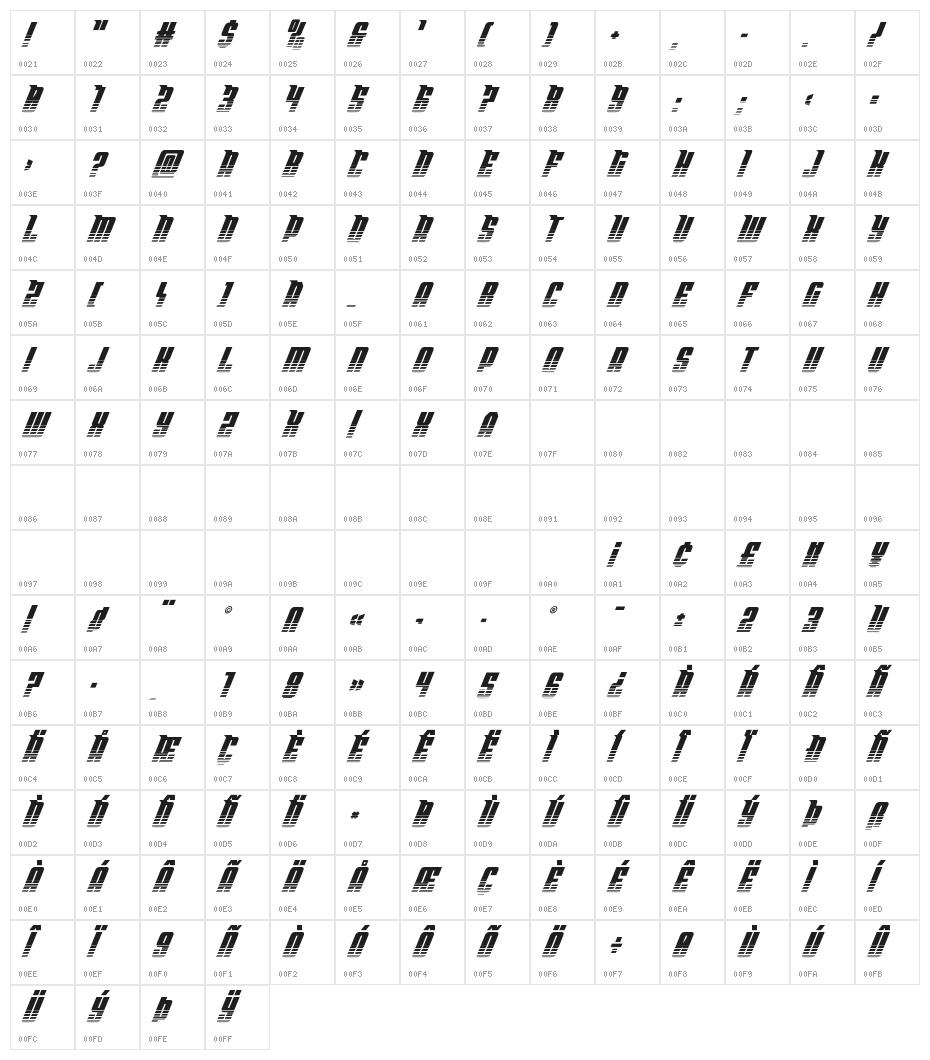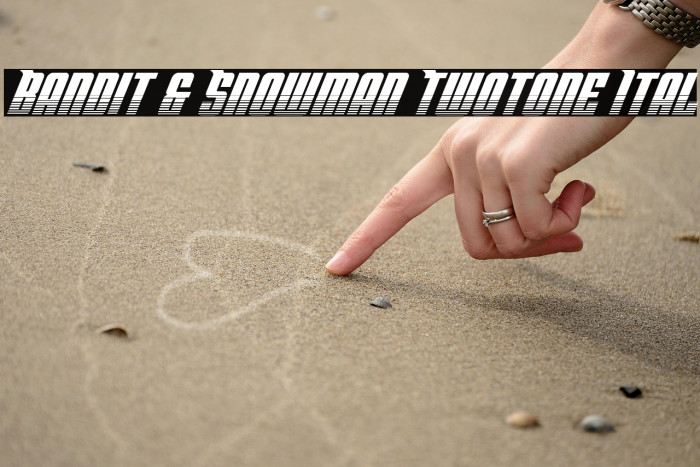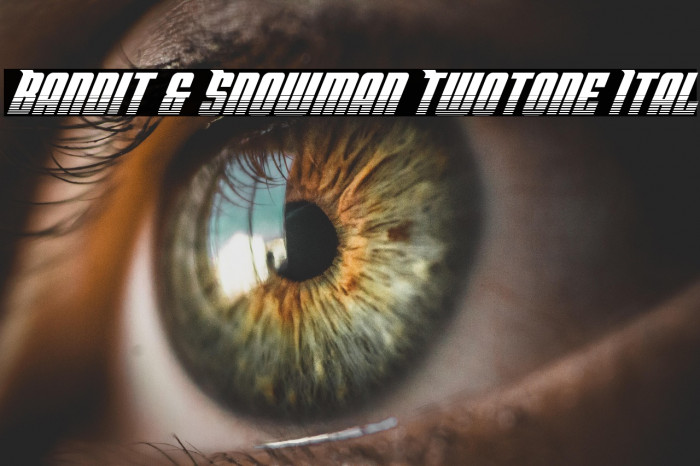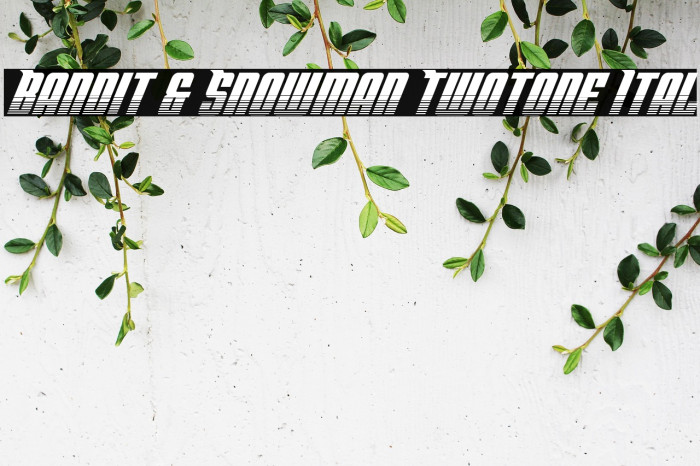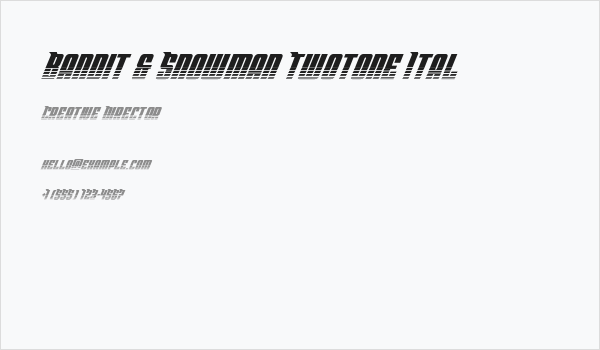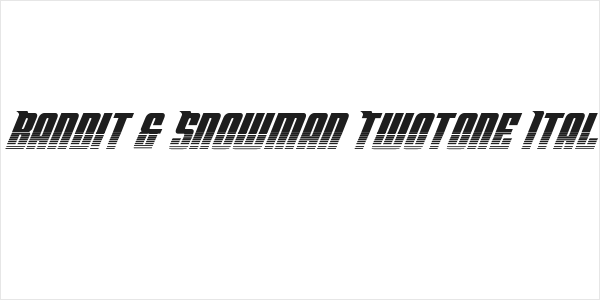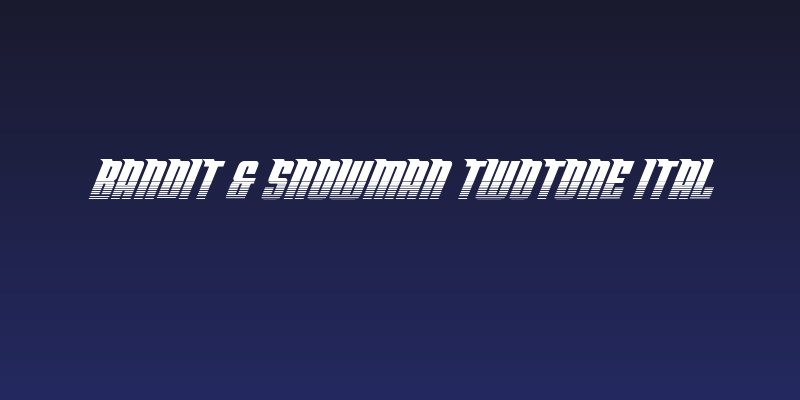
Bandit & Snowman Twotone Ital Font
Bandit & Snowman Twotone Ital Description
This font features a bold, italicized style with a distinctive two-tone effect, creating a dynamic and eye-catching appearance. The characters are designed with a slanted orientation, enhancing the sense of movement and speed. The upper half of each character is solid black, while the lower half transitions into horizontal lines, giving a gradient-like effect. This unique design element adds depth and visual interest. The font maintains a consistent weight throughout, ensuring readability despite its decorative nature. The spacing between characters is tight, contributing to a compact and cohesive look. This font is ideal for projects that require a modern and energetic feel.